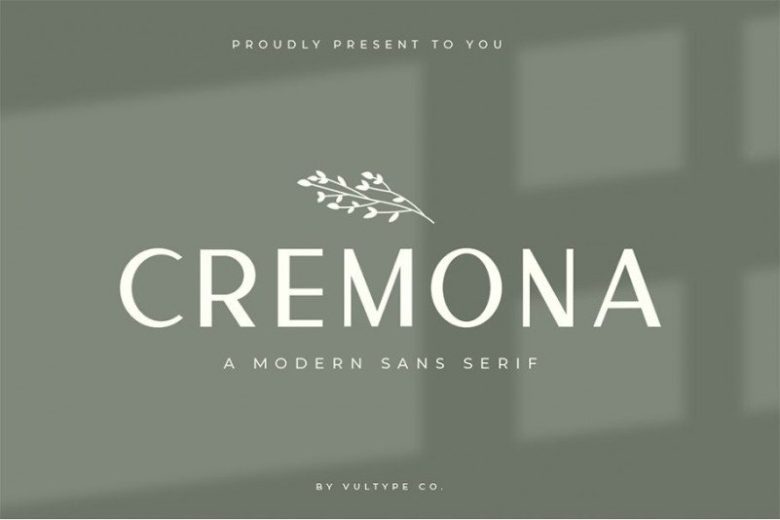
Cremona Sans Serif Font
Cremona Font is sans serif font that designed to be functional. It’s a memorable, fashionable, strong and elegant typeface. You can mix and match the rounded and the Regular style to create something very fresh and modern. It’s a clean & minimal sans serif font family, makes your design clean.
It can be perfect for presentations, magazines, notices, titles, magazine, web layouts, logos, invitations, headers, name card, branding and other any business related.